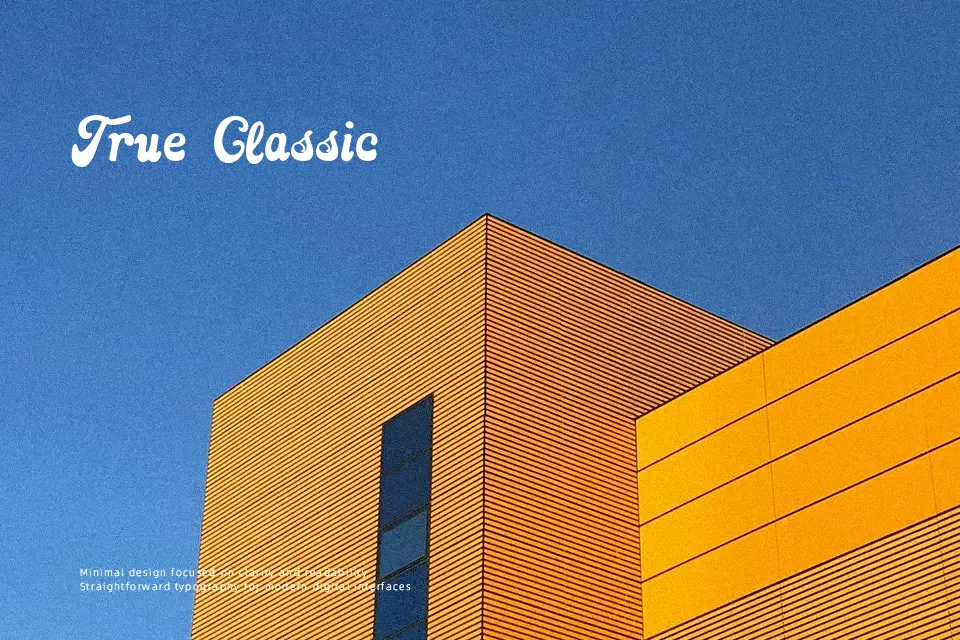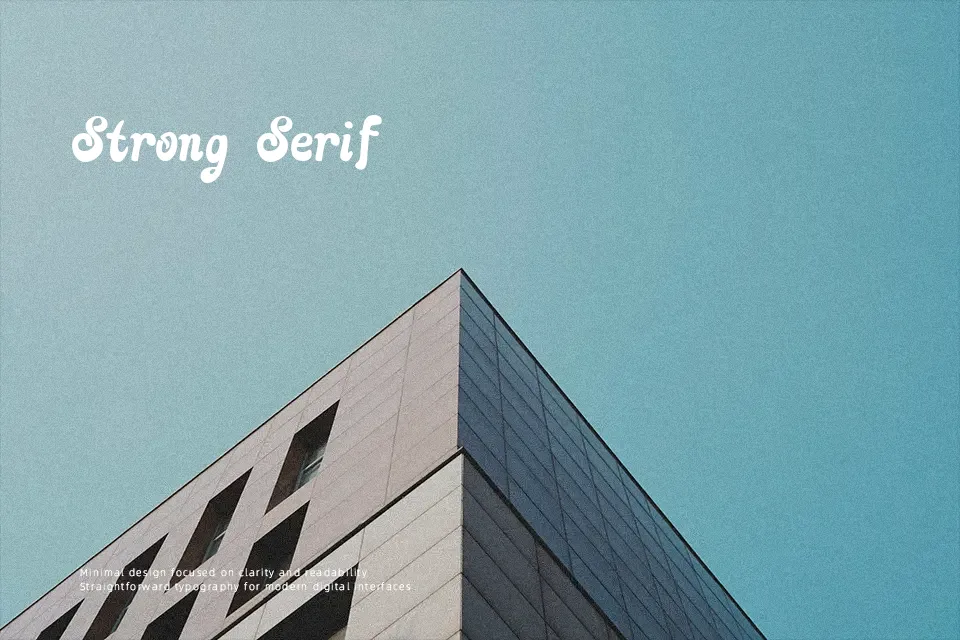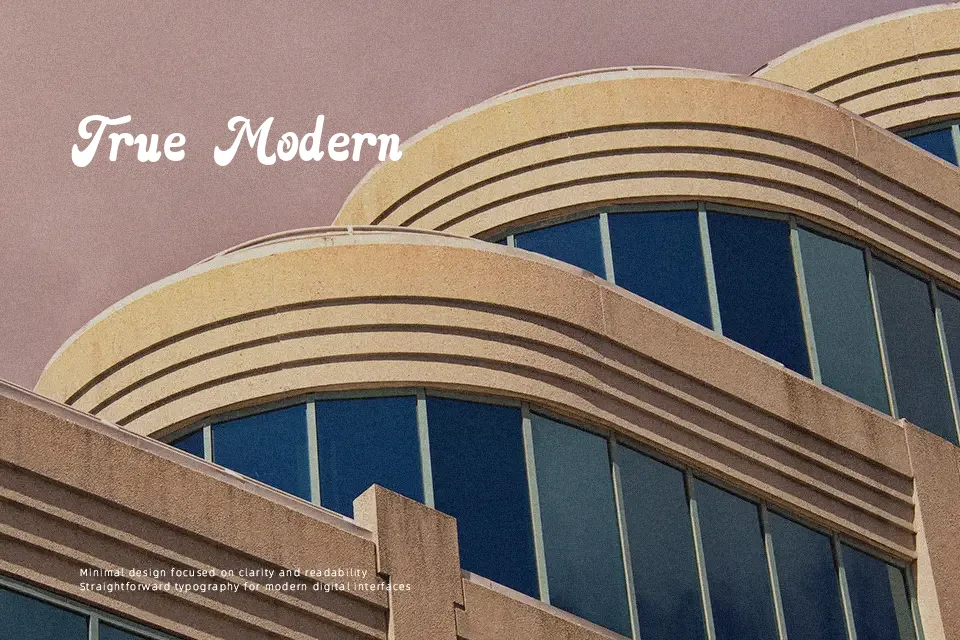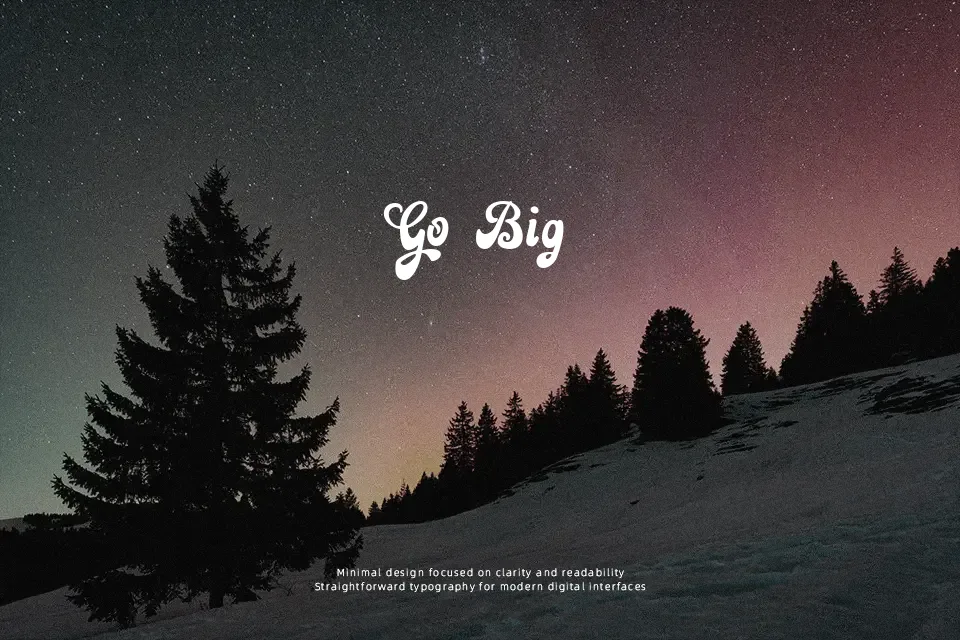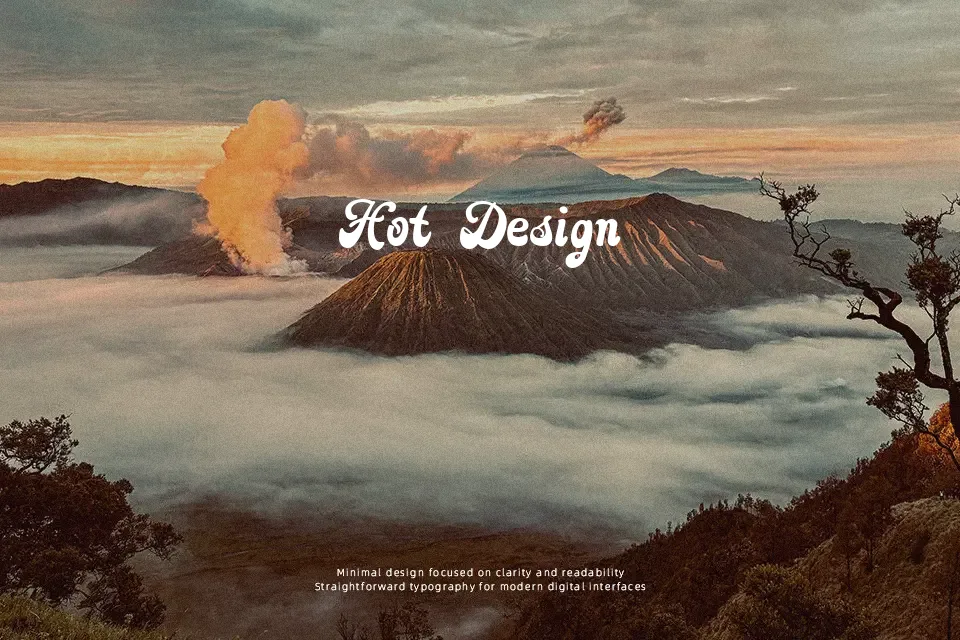
Bombulate Font
Designed by Suamzu Art
Bombulate is a striking retro-styled display font that immediately channels a nostalgic 70s energy. The characters feature a distinct italicized slant, smooth cursive-like connections, and soft rounded terminals, creating an incredibly fluid and bold typographic rhythm. Its swashy, groovy appearance gives off a highly playful and vintage mood. This typeface truly shines when applied to music album covers, retro diner branding, or vibrant streetwear apparel where a funky, standout headline is necessary. However, its stylized heavy curves and interconnected letterforms significantly reduce legibility at smaller sizes. You should avoid using Bombulate for any body text, corporate documents, or formal editorial layouts, as the expressive vintage flair will easily overwhelm dense paragraphs and distract from the core message.
Vintage-themed music album covers
Retro diner branding and packaging
Groovy streetwear apparel typography
Vibrant social media headlines
Dense paragraphs of body text
Formal corporate identity materials
Small or low-contrast UI elements
Perfect for branding, headline, and logo, with a groovy and decorative style.